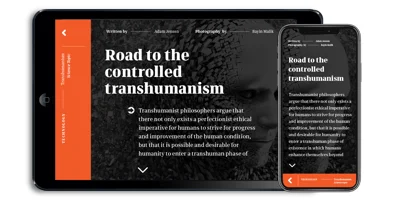
Mondo News Font
Mondo News Font is ideal for journalistic design projects including newspaper headlines, news website interfaces, media company branding, broadcasting network logos, press release materials, news magazine layouts, journalism school publications, and urgent news announcements. This authoritative typeface works perfectly for television news graphics, radio station branding, digital news platforms, investigative reporting materials, and projects that demand immediate attention and credible news communication.
What makes Mondo News Font exciting is its commanding journalistic character that perfectly captures the essence of breaking news urgency and editorial authority. The font features bold, impactful letterforms with strong presence that reflect the power and responsibility of news media communication. Its dynamic design elements embody the fast-paced nature of modern journalism and the critical importance of clear, immediate information delivery, making it perfect for projects that need to convey urgency, credibility, and media professionalism. The carefully engineered weight distribution ensures maximum readability under time pressure.
Mondo News Font comes in multiple family variations including headline, subhead, regular, bold, and condensed styles. Each weight maintains the distinctive journalistic character while offering different levels of editorial hierarchy and news presence. The font family includes breaking news alternates, urgent ligatures, and broadcast variations that provide designers with comprehensive options for creating truly impactful and professionally credible news typography that commands immediate attention.
Whether you're designing news branding, creating media marketing materials, or developing journalism promotional graphics, Mondo News Font provides the perfect typographic foundation for projects that deliver breaking news and editorial excellence. This exceptional typeface transforms standard text into compelling expressions of journalistic integrity and news authority. Download this remarkable font today and broadcast your design projects with the urgent clarity and professional credibility that captures the essential spirit of modern journalism and news communication.